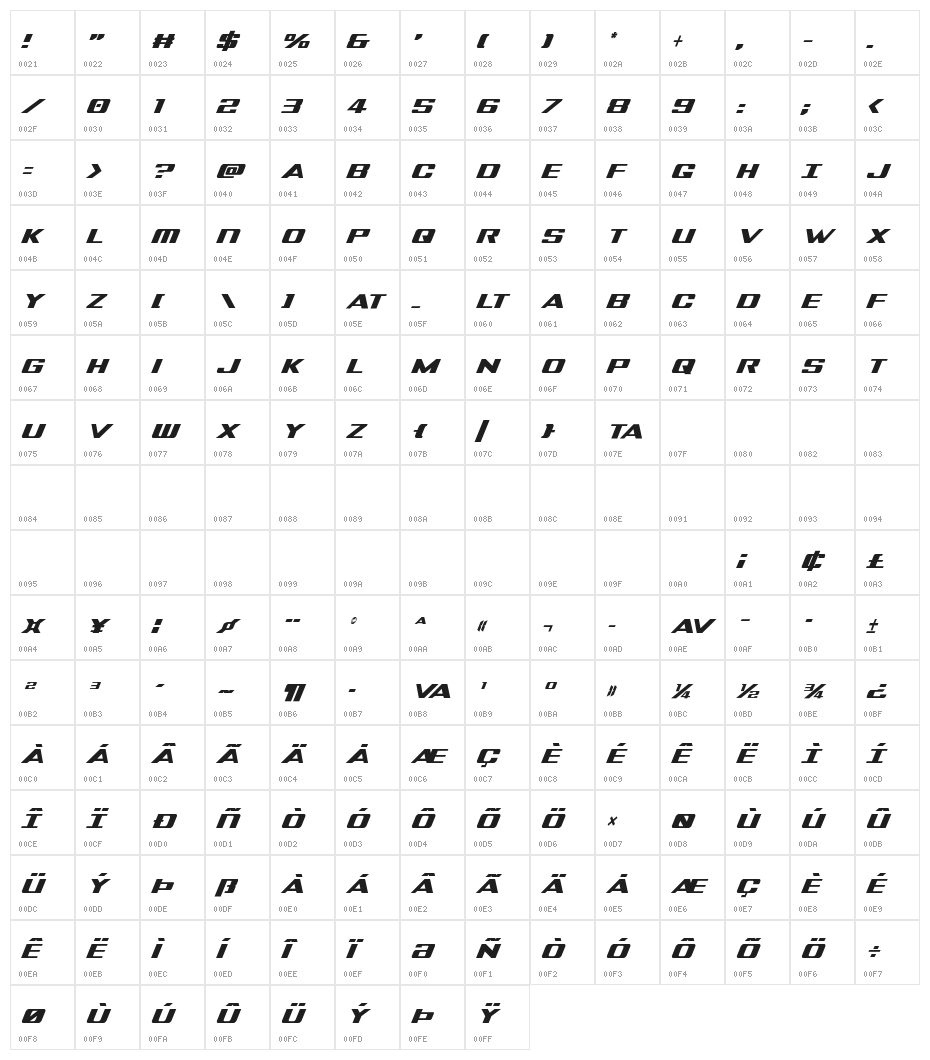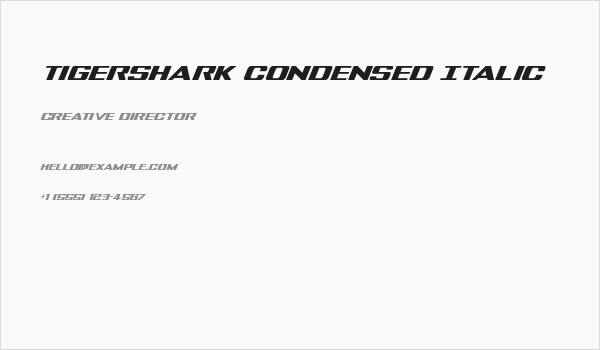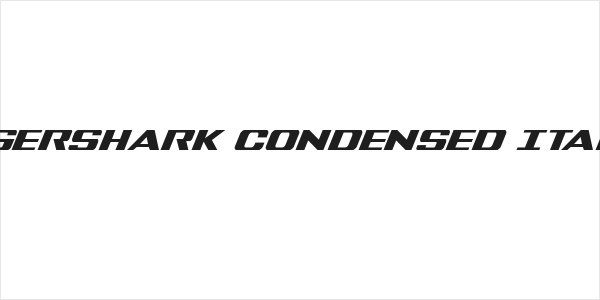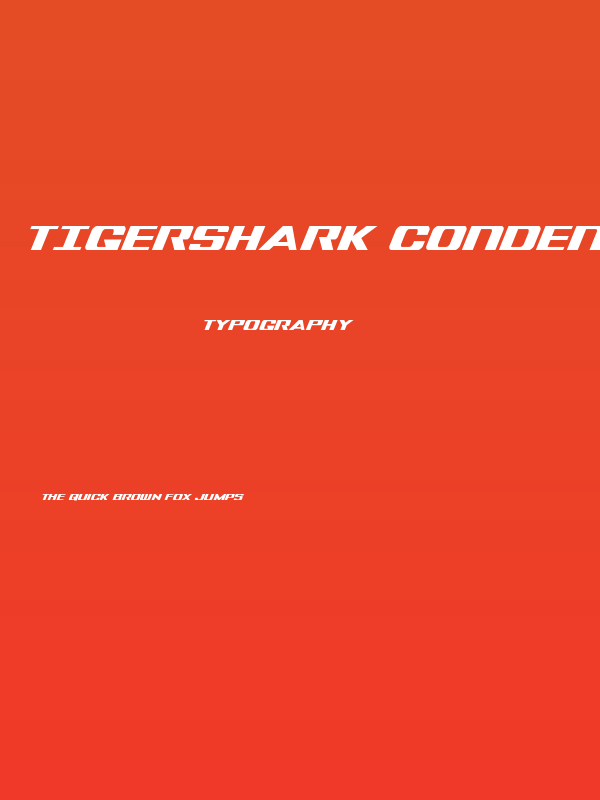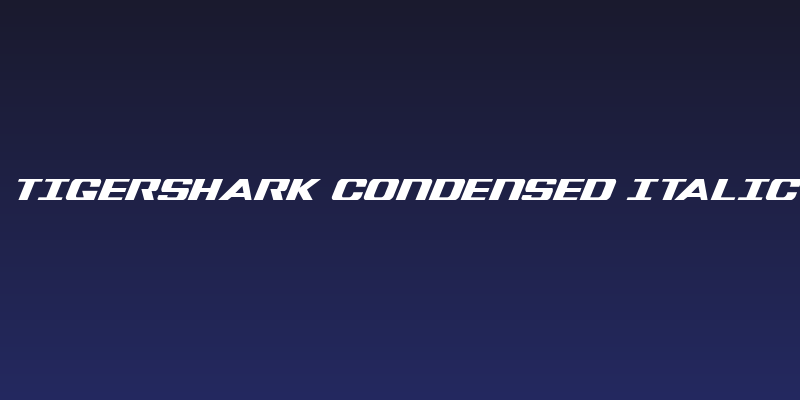
Tigershark Condensed Italic Font
Tigershark Condensed Italic Description
This font features a bold and dynamic design with a strong italic slant, giving it a sense of motion and energy. The characters are condensed, which makes them appear sleek and modern, while the bold weight adds a sense of strength and impact. The angular cuts and sharp edges contribute to a futuristic and sporty aesthetic, making it ideal for projects that require a bold statement. The numbers and special characters maintain the same stylistic features, ensuring consistency across all text elements.
| Proposed Projects | Ideal for sports branding, automotive designs, dynamic posters, and modern advertising campaigns. |